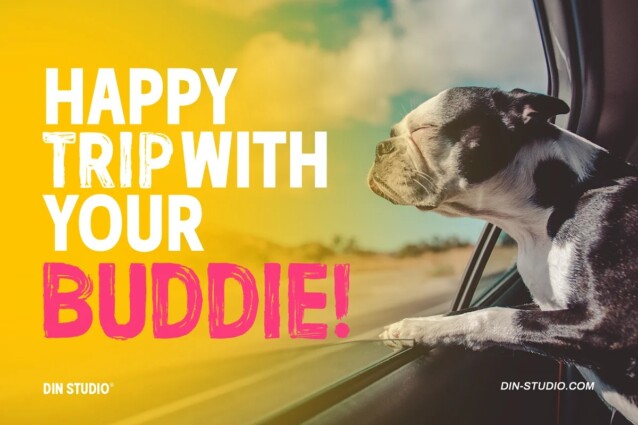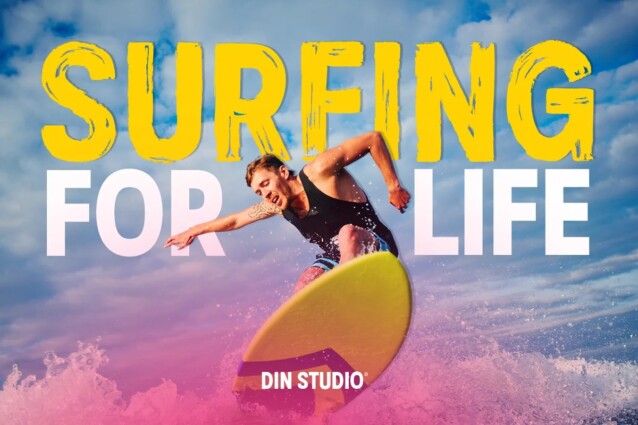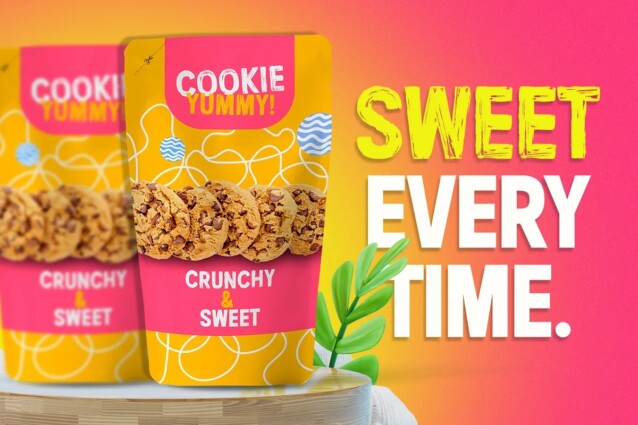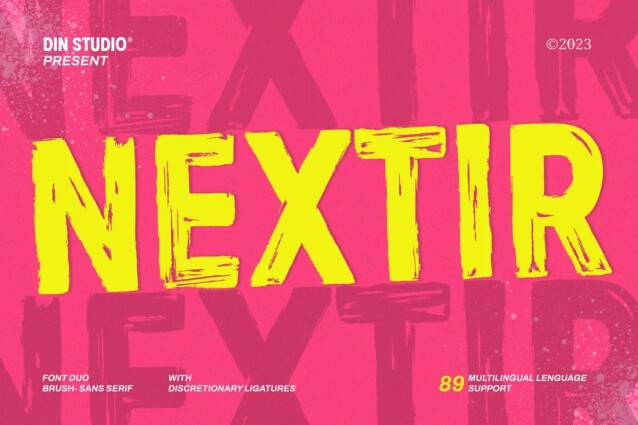
Nextir Font
Nextir Font is entirely hand-painted sans serif font. A raw, bold, condensed font, with brushy imperfections and an earthy realism. What sets Nextir apart from the ordinary is its brush detailing. This unique blend of brush strokes and sans serif elements adds a layer of organic texture to the font. The combination of large letters, thick weight, square shapes, and brush detailing creates a font that makes a striking statement with a contemporary edge. When you need a typeface that combines strength with artistic expression, Nextir is the perfect choice to infuse your designs with boldness, modernity, and a touch of handcrafted elegance. You can also enjoy the features here.